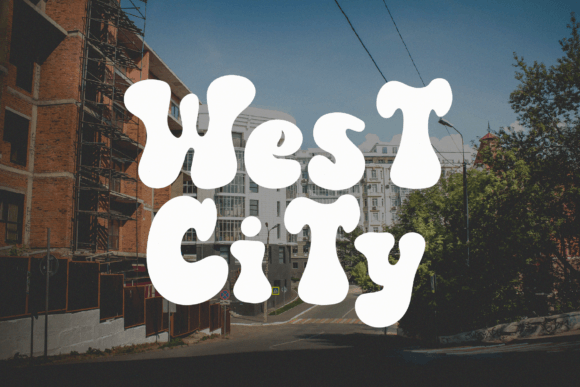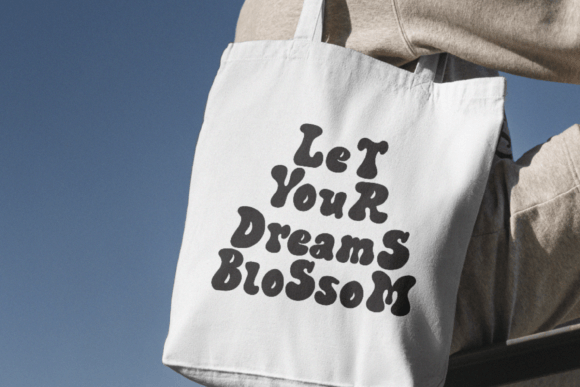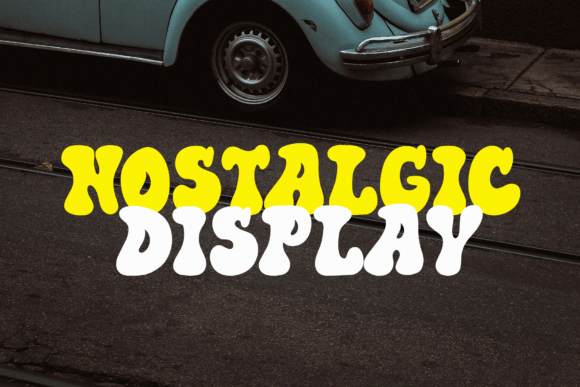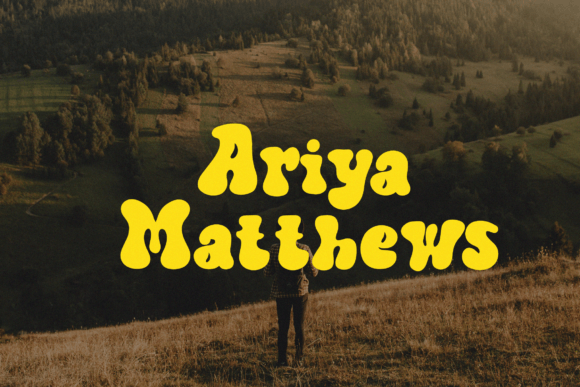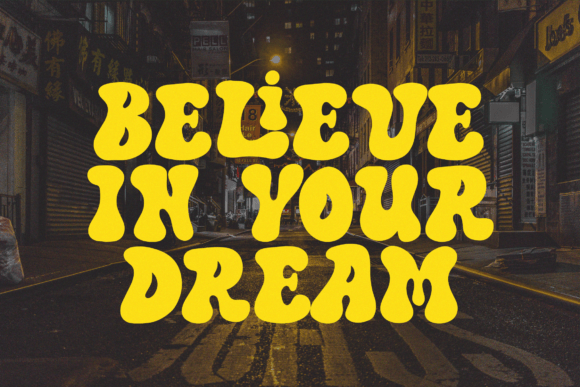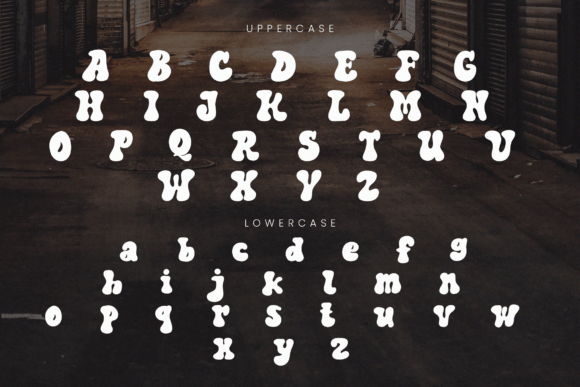
Introduction to Rush Highty Font Font
Fonts play a crucial role in design, and the Rush Highty Font font is a typeface that brings both character and versatility to any project. Whether you’re working on a branding project, a website, or a print design, the Rush Highty Font font offers a unique style that can elevate your work.
Rush Highty is a display font with a bubbly style, full of energy and character.
With its smooth curves, the letters exude a relaxed, fun, and cheerful vibe Perfect for a variety of creative design needs, such as posters, product packaging, social media designs, and unique branding that stands out.
Why Choose Rush Highty Font Font?
The Rush Highty Font font is more than just a typeface – it’s a design tool that helps you communicate your message with style and clarity. Its unique character set and versatile design make it suitable for a wide range of applications, from elegant invitations to bold headlines.
With its carefully crafted letterforms and balanced proportions, the Rush Highty Font font ensures readability and visual appeal across all mediums.
What makes Rush Highty Font font special?
The Rush Highty Font font stands out with its unique design, exceptional readability, and versatility across various design applications.